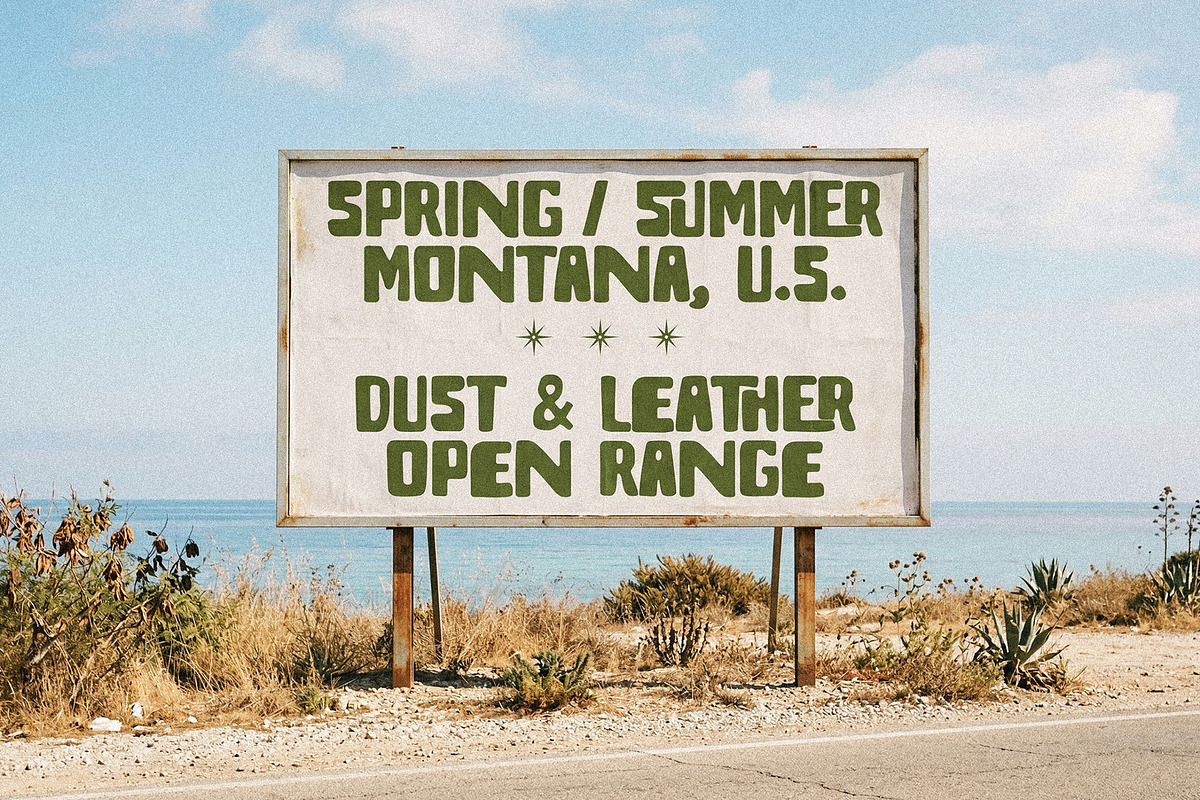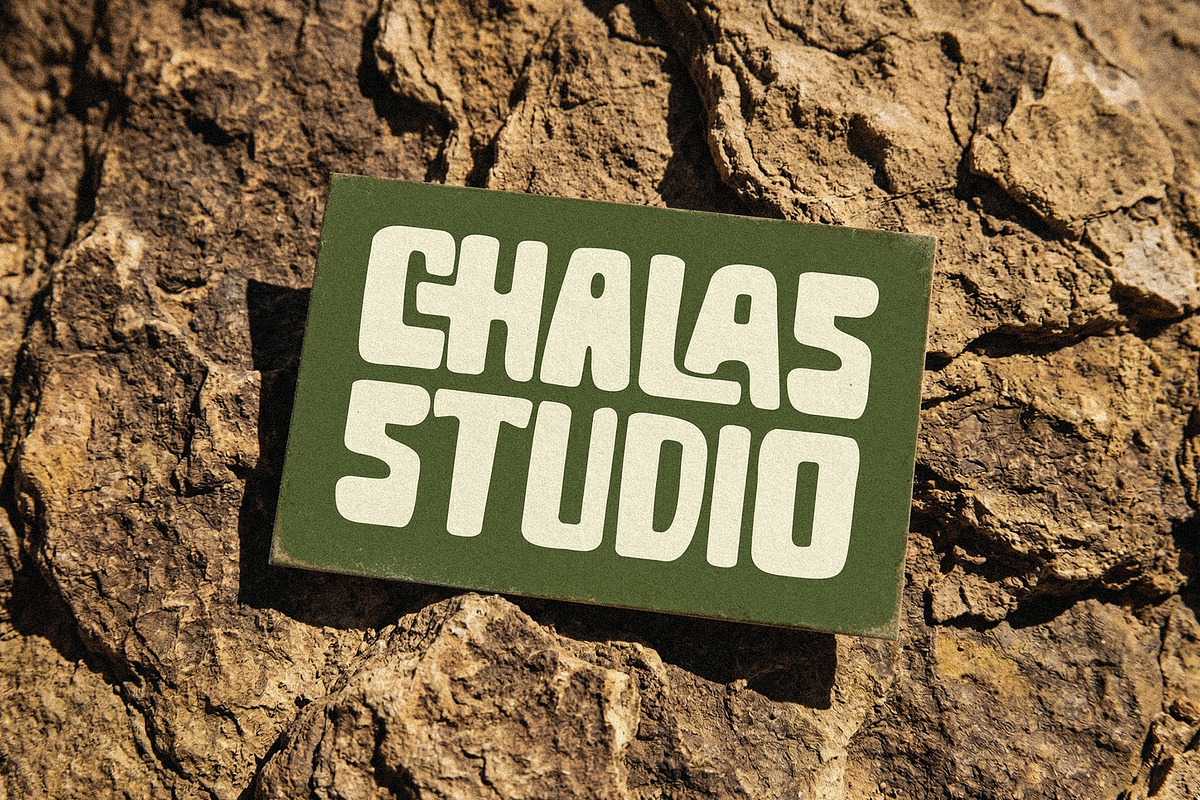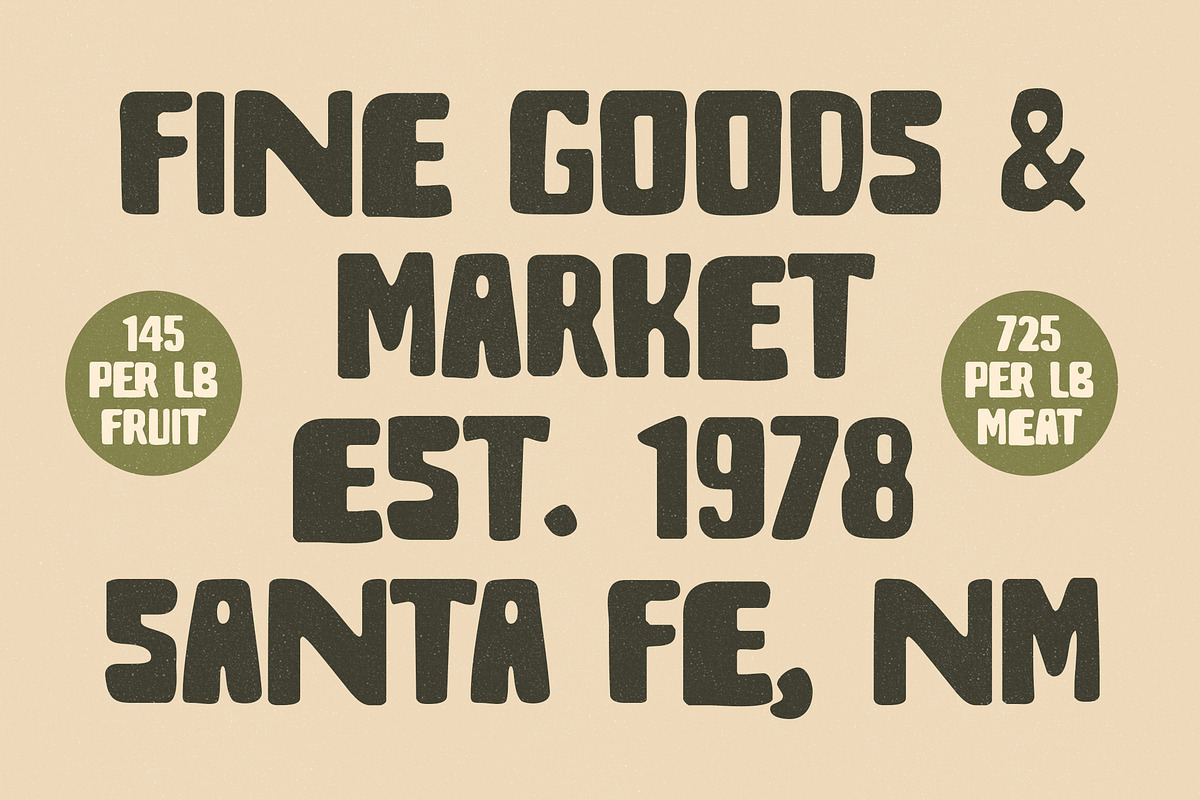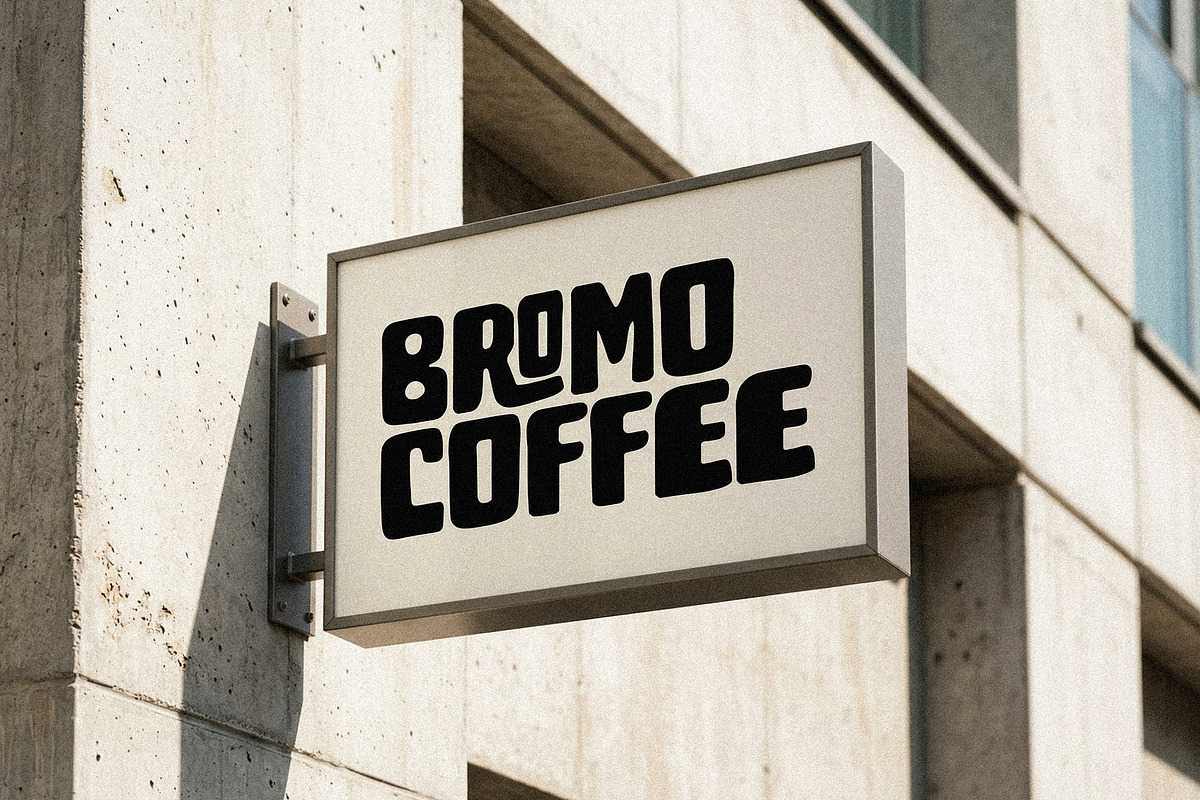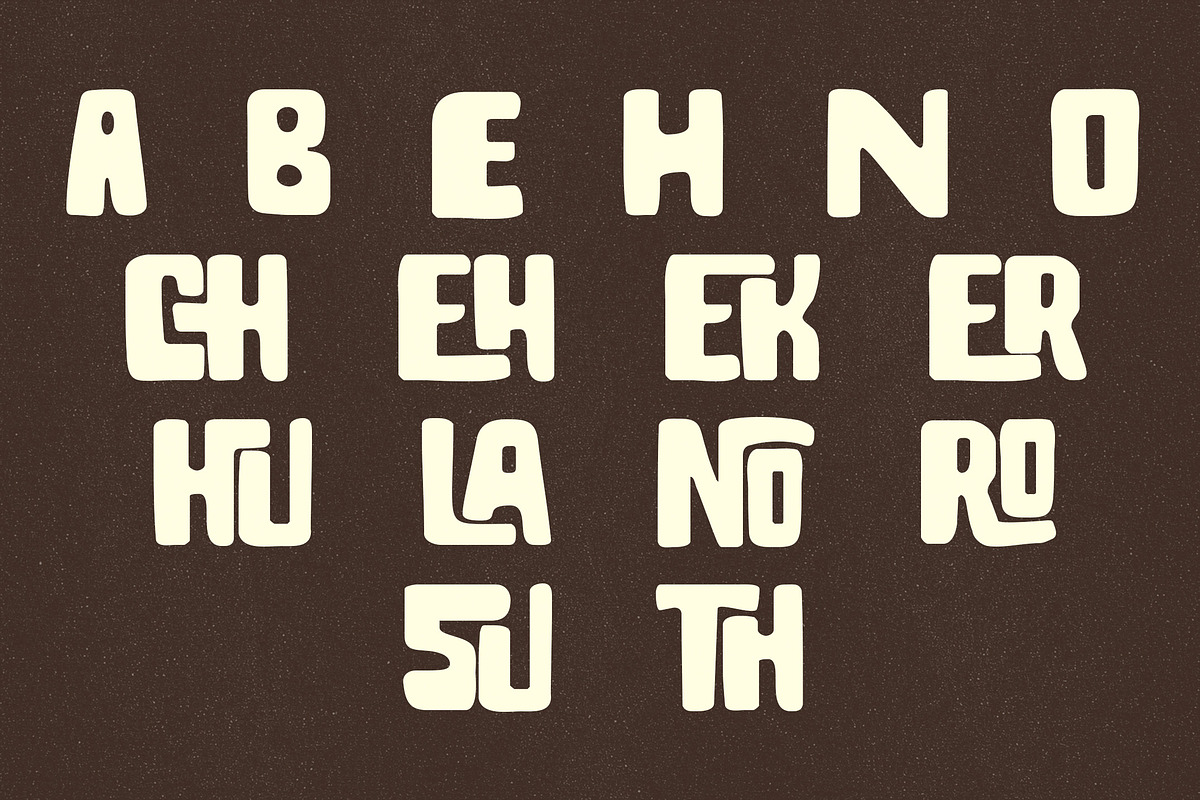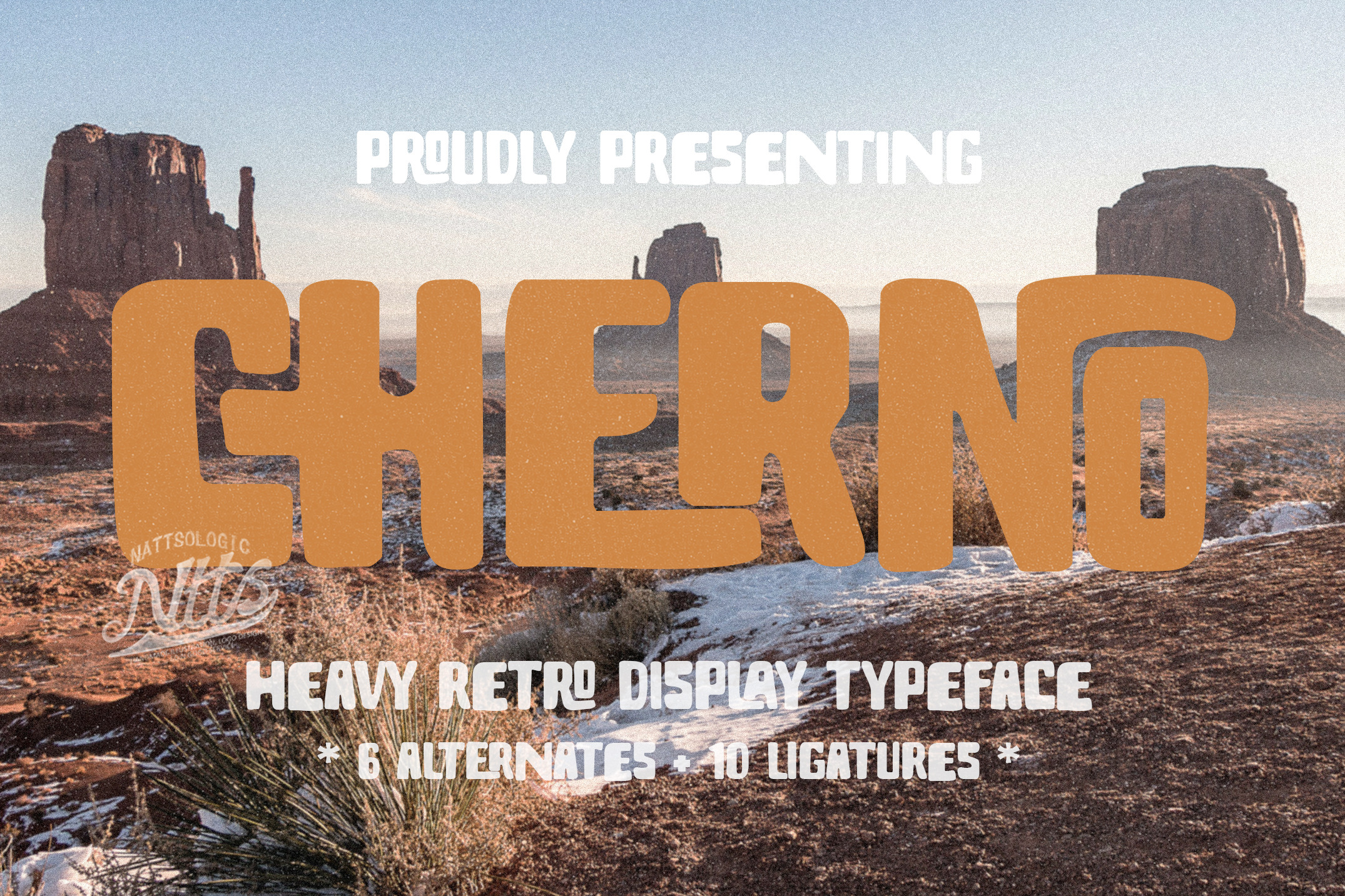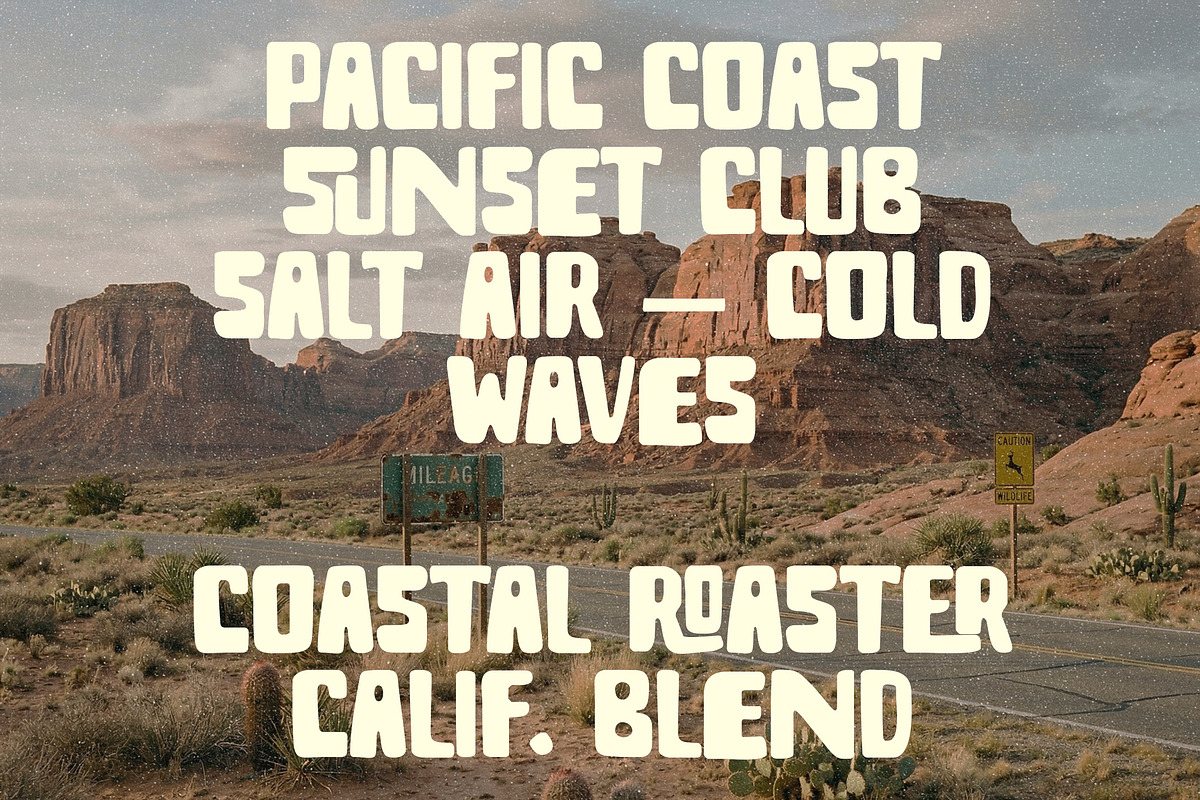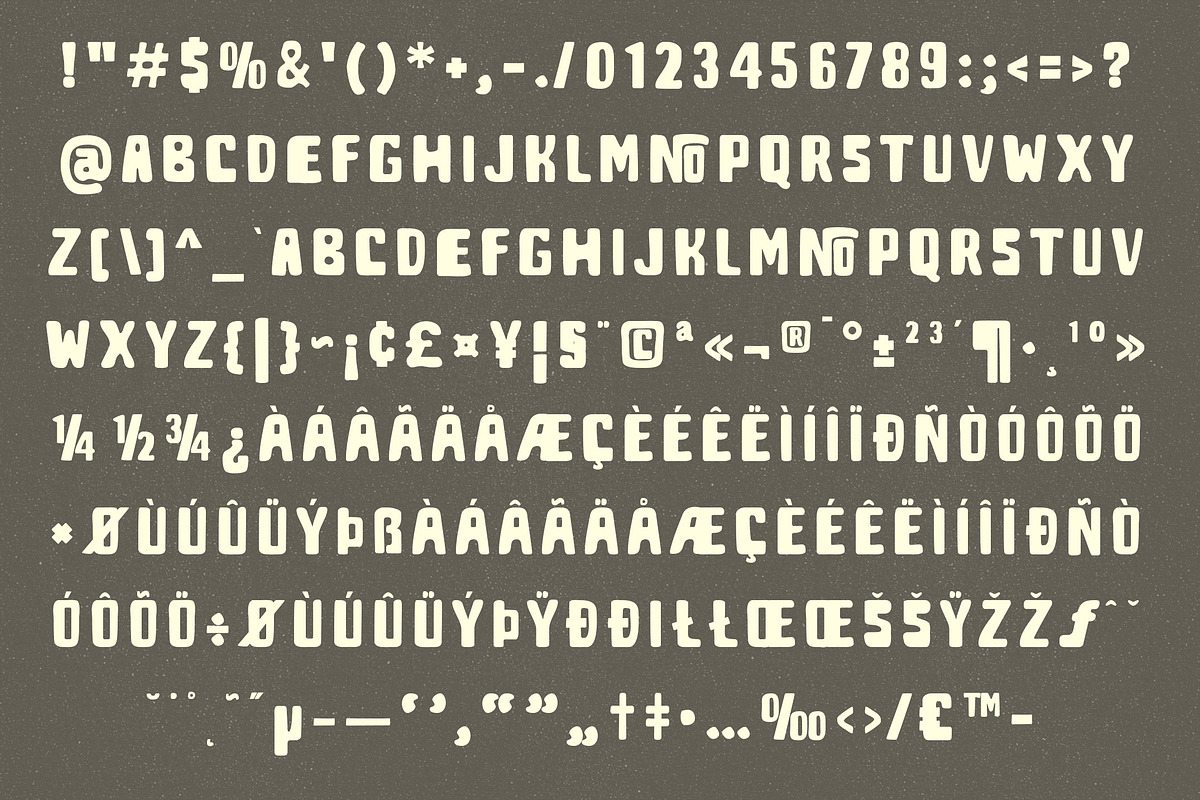
CHERNO HEAVY RETRO DISPLAY FONT
CHERNO HEAVY RETRO DISPLAY TYPEFACE by Nattsologic Studio.
Inspired by wild west vibes, use this font on a front-store sign or vintage poster. Each line is hand-drawn uniquely and will fit your brand. It's great for logos, branding, packaging design, posters, banners, stationery, t-shirts, or merchandise! Thanks!